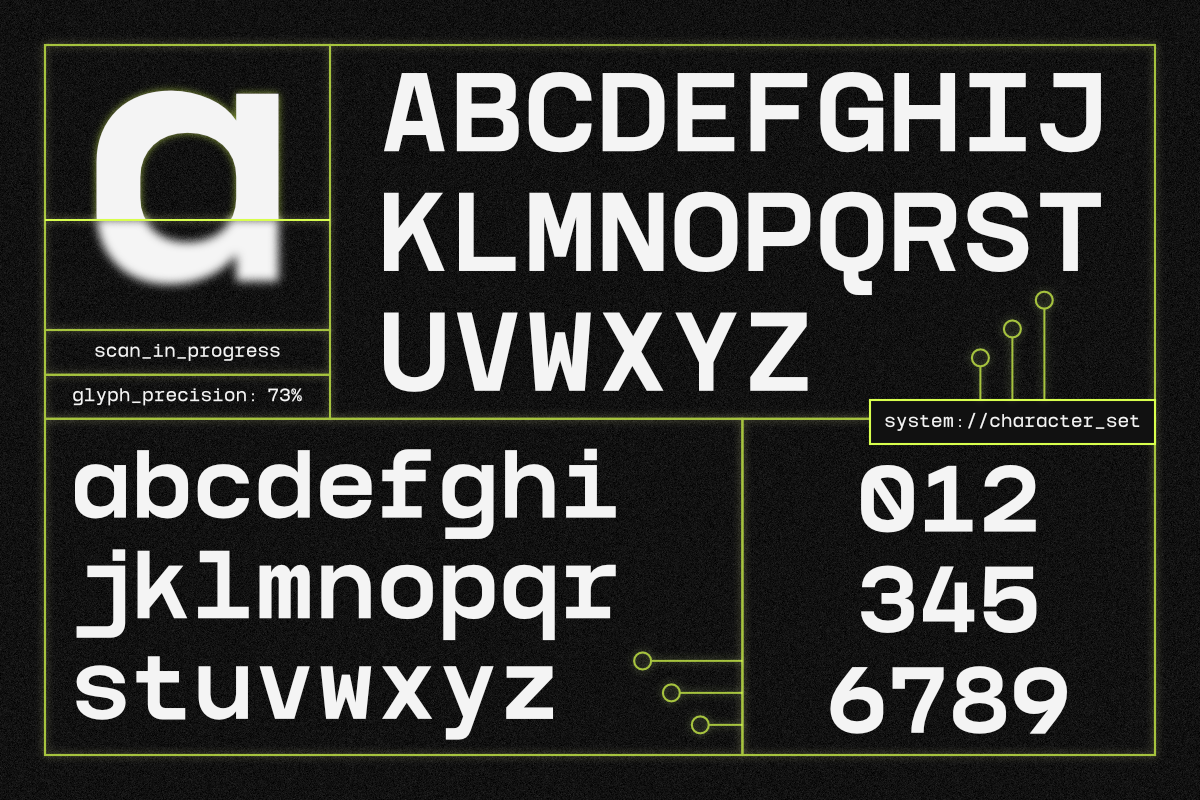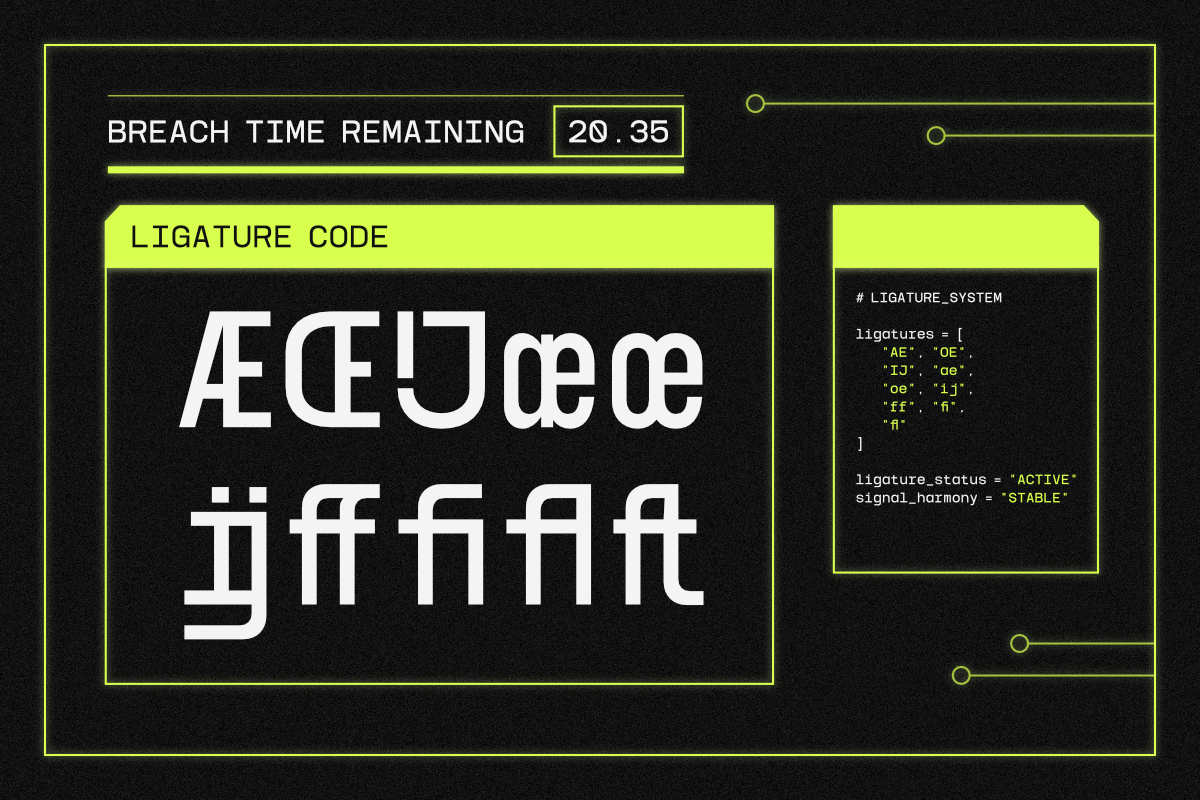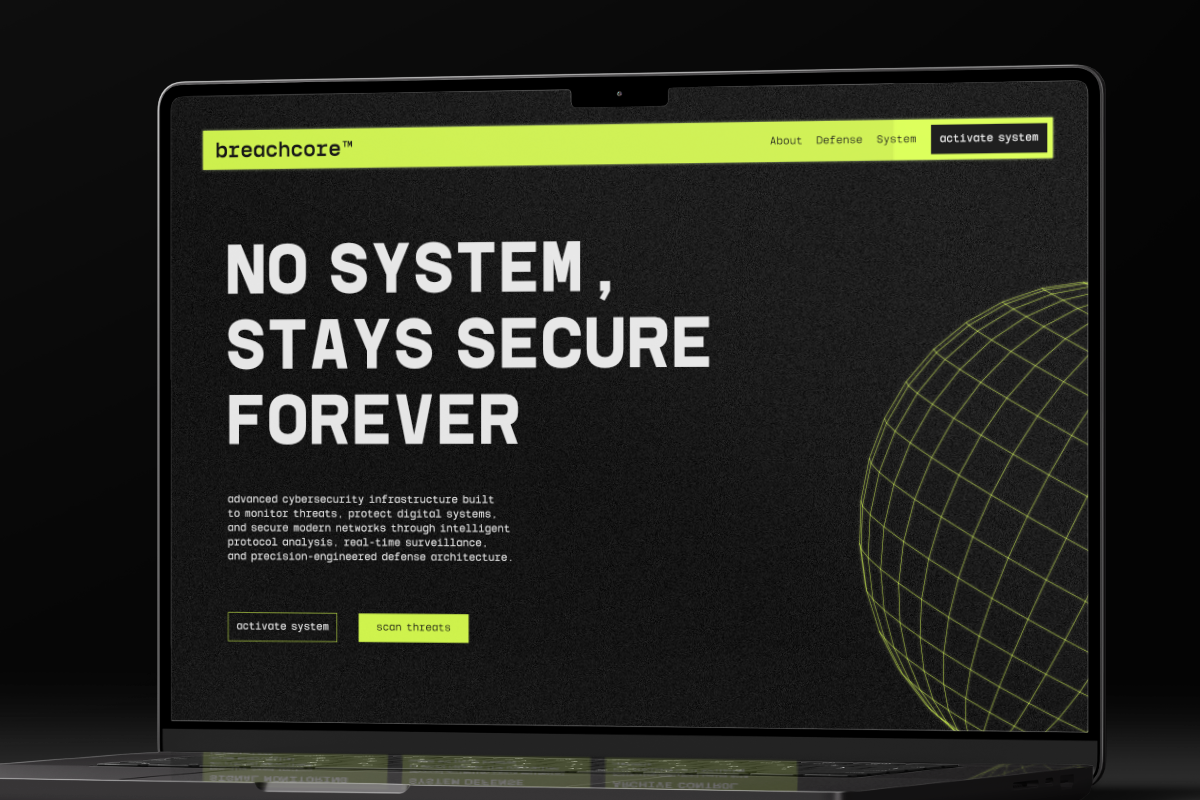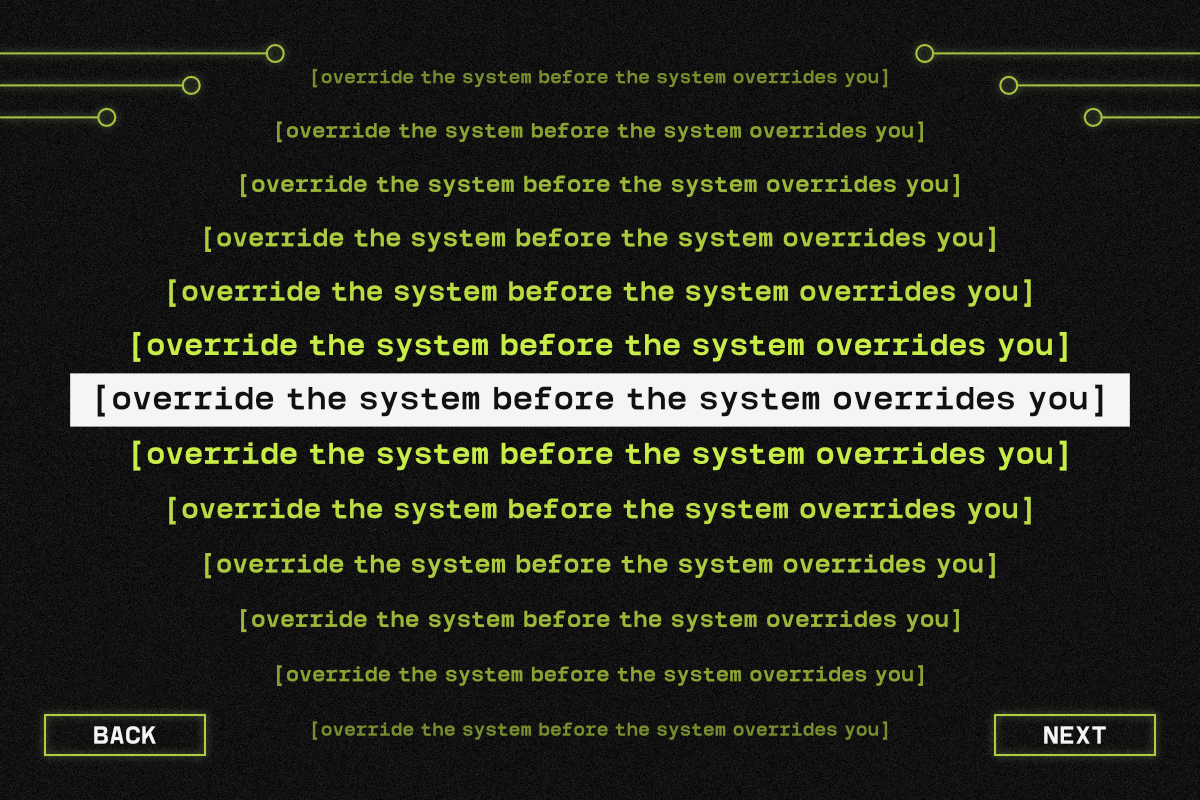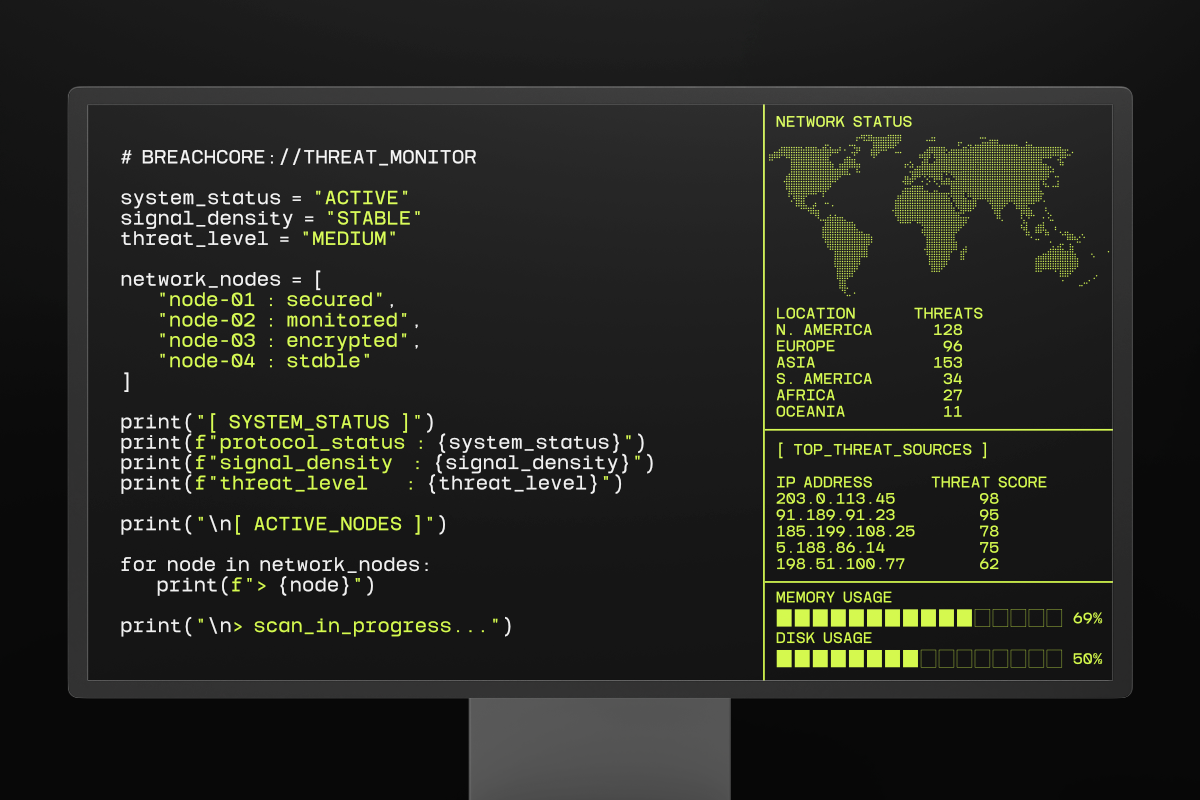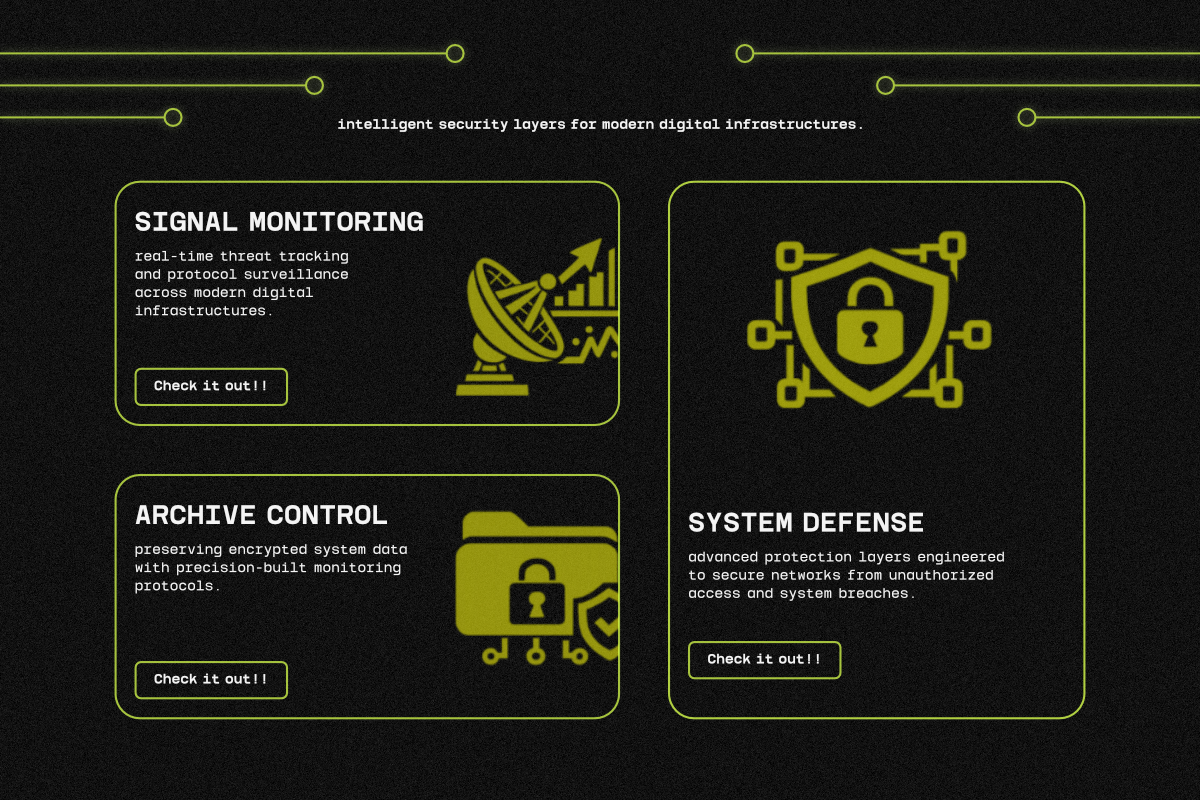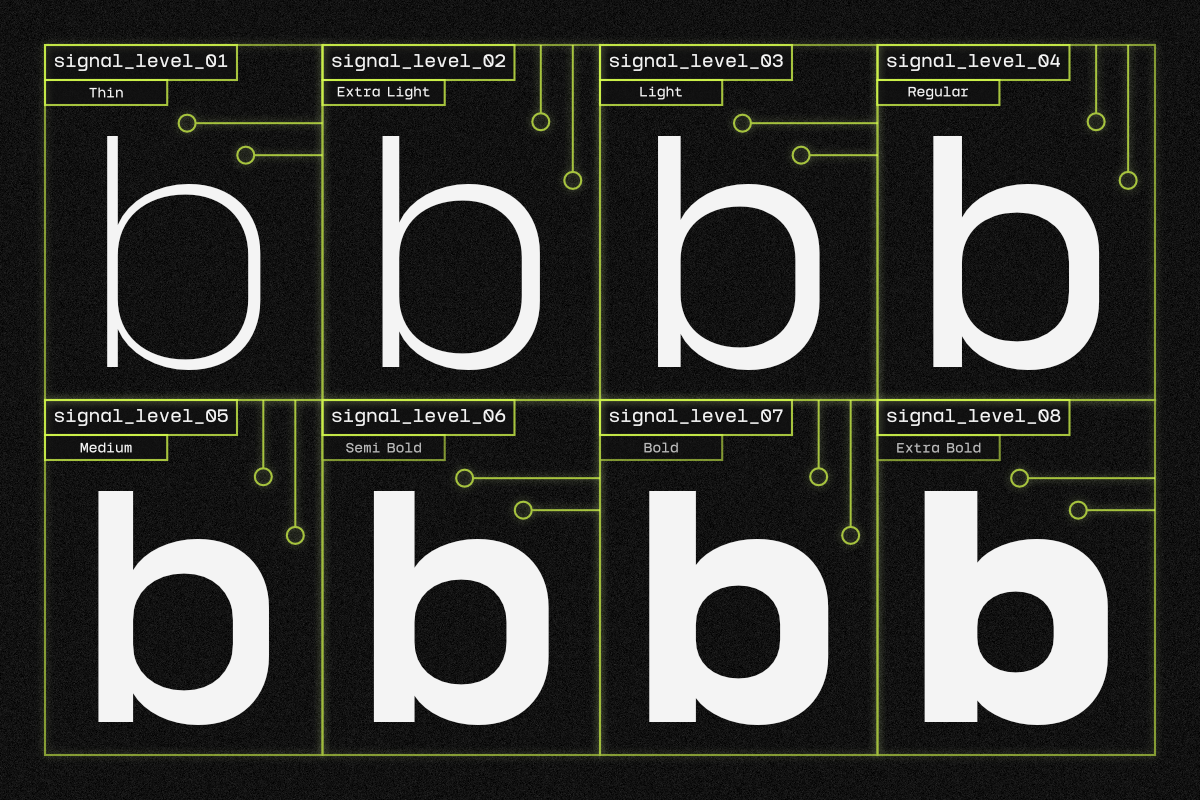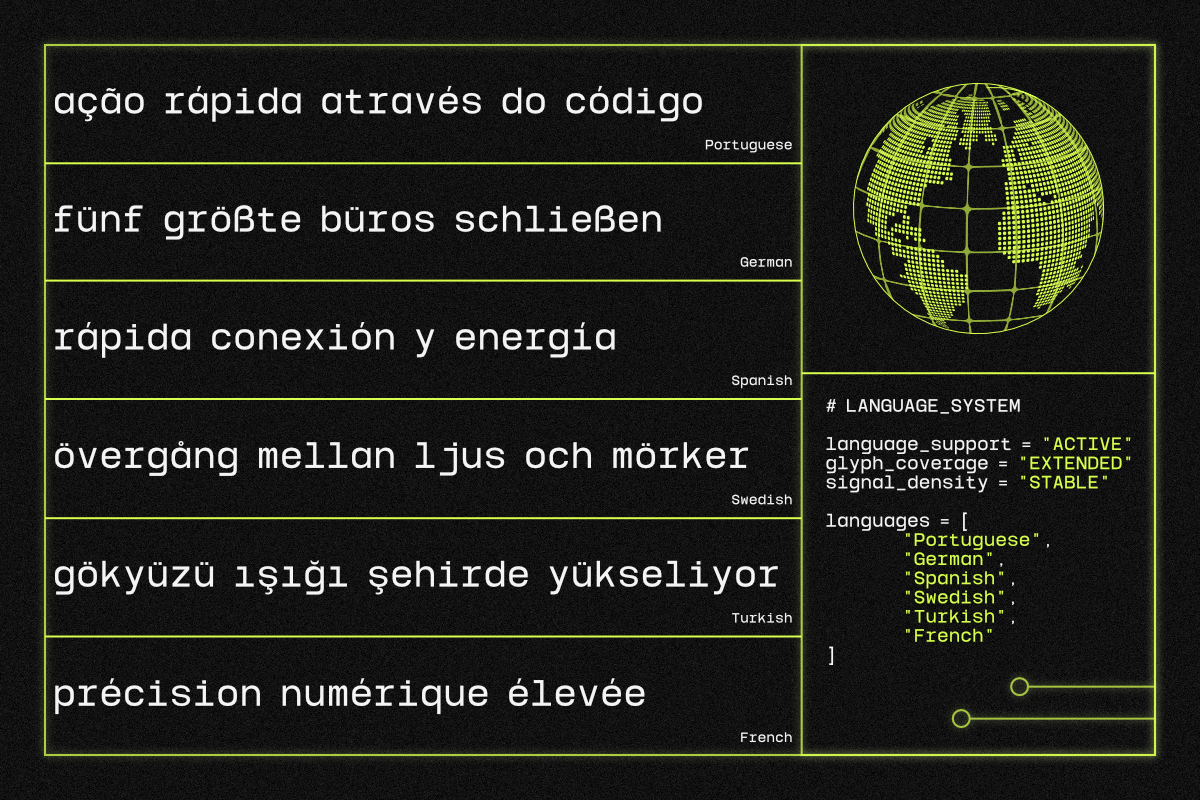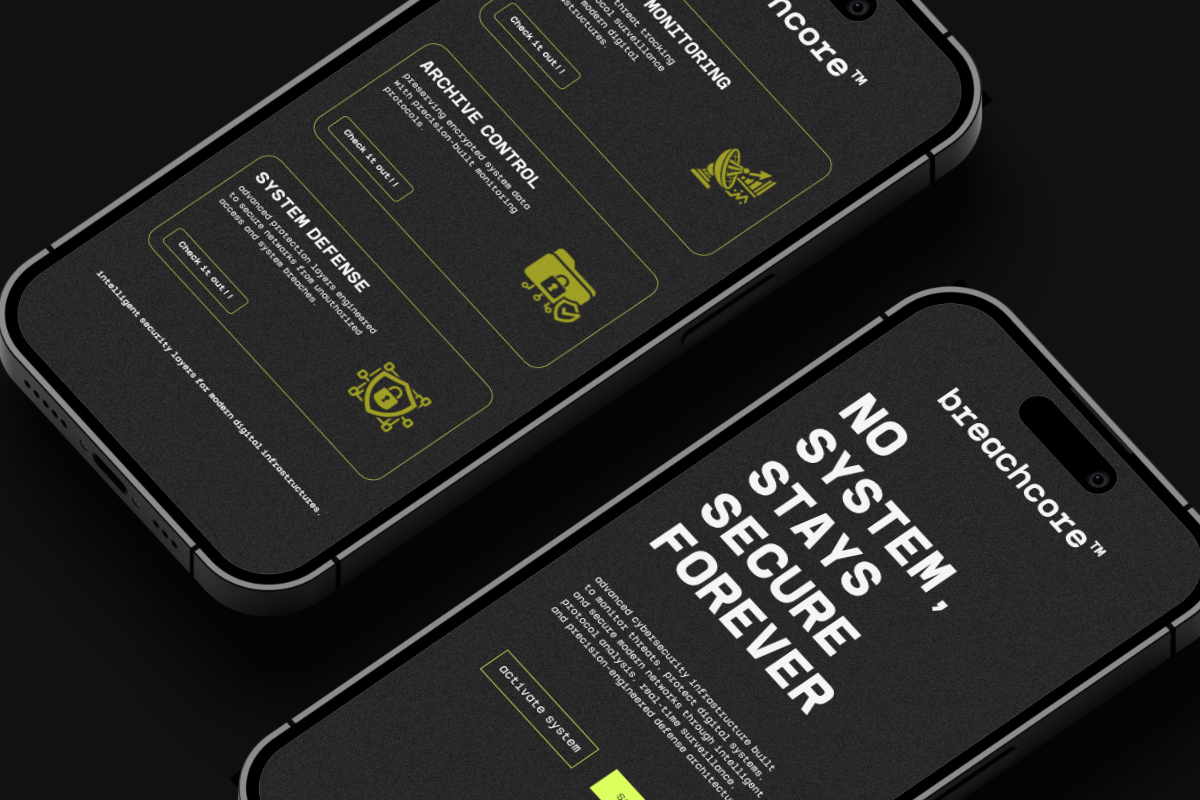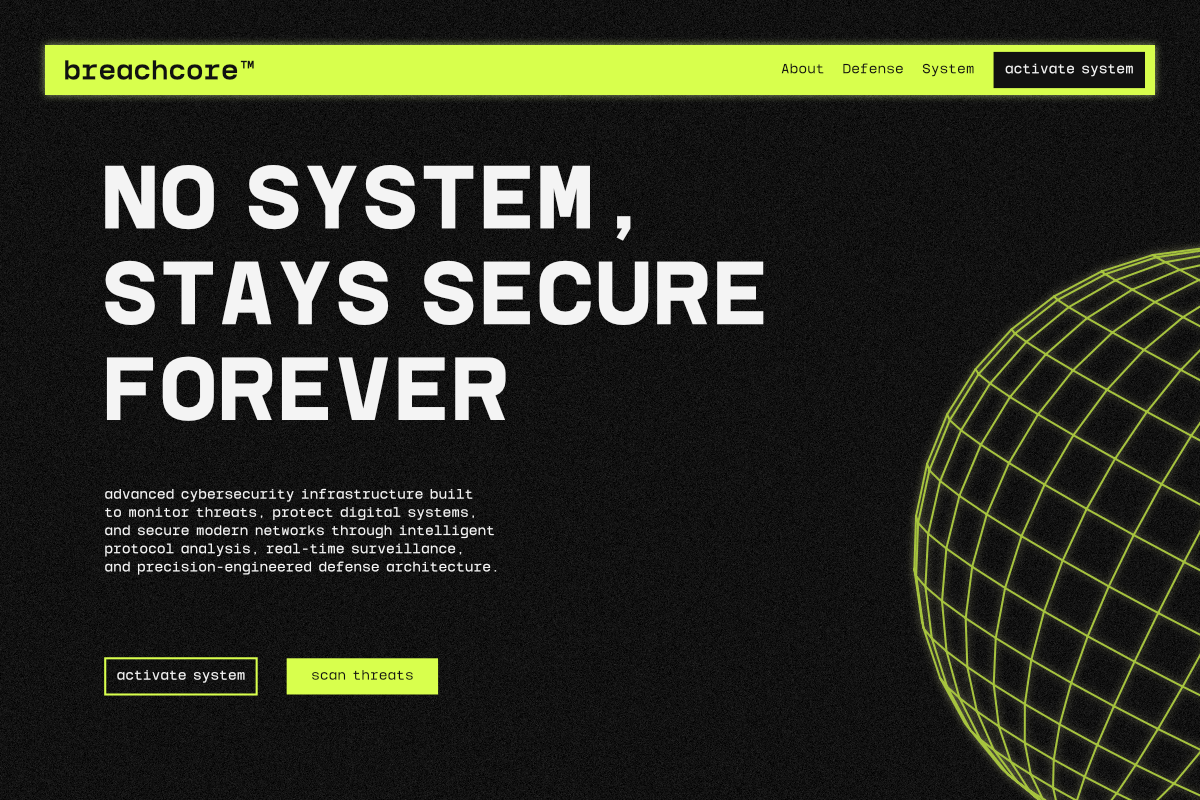
NV Monobreach – Modern Monospace
NV Monobreach Monospace Font Family is a futuristic and precision-driven type system designed to combine technical clarity with bold visual character. Developed by NovaraType, NV Monobreach features geometric construction, uniform spacing, and modern monospace aesthetics—making it an ideal choice for coding interfaces, tech branding, sci-fi visuals, UI systems, gaming graphics, and cyber-inspired creative projects.
NV Monobreach is carefully crafted to maintain consistency and readability across different weights and display sizes. Its structured forms and futuristic details create a strong digital atmosphere while remaining versatile enough for both functional and experimental design work. Whether used for technology branding, interface systems, posters, or modern editorial layouts, NV Monobreach delivers a clean and distinctive monospace experience.
NV Monobreach Monospace Font Family Includes:
Multiple Weights
Monospace Styles
Alternates & Ligatures
Accented Characters